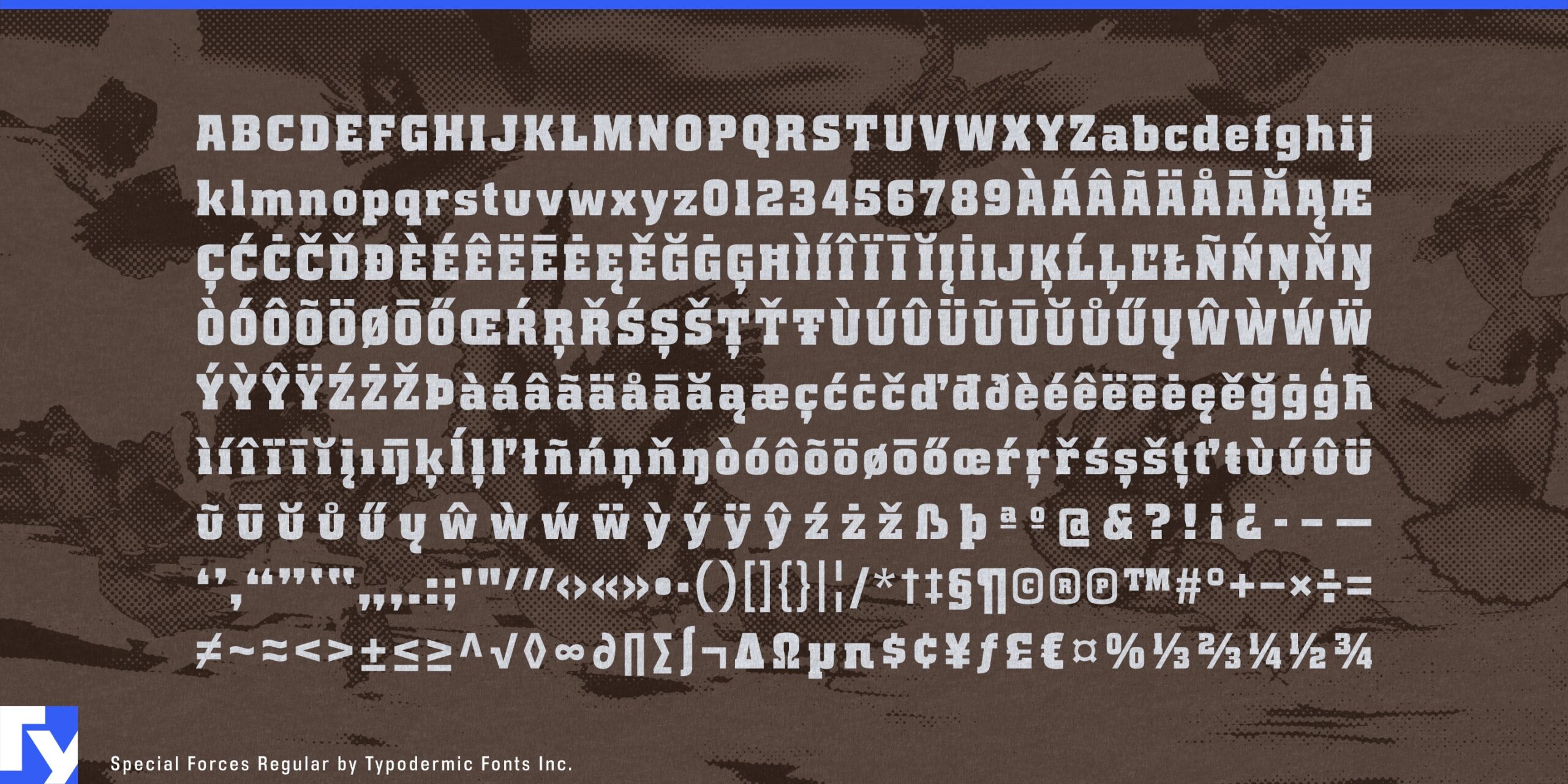
Special Forces Regular Font Free Download . With beautiful script type, professional sans serif font and more. Special forces is a tough, slab serif headline font designed for the screen. This stencil typeface is not your Special forces regular font free download. It is characterized by its tough appearance, making it. A great choice for highlighting your design elements. Special forces font is a robust slab serif typeface designed primarily for headlines and screen use. Download tactical trooper font · free for personal use · introducing “tactical trooper,” a font that brings military precision and modern style together in perfect harmony. You can download the best fonts, free fonts for personal or commercial use. Download special forces regulartruetype font. See how to download special forces. Special forces font | dafont.com english français español deutsch italiano português. Special forces font 2 otf | 9 mb. Download 186,286 free fonts at ufonts.com
Special Forces Regular Font Free Download A great choice for highlighting your design elements. Special forces font is a robust slab serif typeface designed primarily for headlines and screen use. Special forces font 2 otf | 9 mb. Download special forces regulartruetype font. Special forces font | dafont.com english français español deutsch italiano português. Special forces is a tough, slab serif headline font designed for the screen. It is characterized by its tough appearance, making it. You can download the best fonts, free fonts for personal or commercial use. Special forces regular font free download. With beautiful script type, professional sans serif font and more. Download 186,286 free fonts at ufonts.com A great choice for highlighting your design elements. See how to download special forces. This stencil typeface is not your Download tactical trooper font · free for personal use · introducing “tactical trooper,” a font that brings military precision and modern style together in perfect harmony.
Jedi Special Forces 3D Regular Font Special Forces Regular Font Free Download Special forces font | dafont.com english français español deutsch italiano português. Special forces font 2 otf | 9 mb. Special forces regular font free download. This stencil typeface is not your See how to download special forces. Special forces is a tough, slab serif headline font designed for the screen. It is characterized by its tough appearance, making it. Download. Special Forces Regular Font Free Download.
Army Expanded Regular truetype font Special Forces Regular Font Free Download It is characterized by its tough appearance, making it. This stencil typeface is not your See how to download special forces. Download tactical trooper font · free for personal use · introducing “tactical trooper,” a font that brings military precision and modern style together in perfect harmony. Special forces regular font free download. Special forces font is a robust slab. Special Forces Regular Font Free Download.
Army Rangers Gradient Regular Fonts Downloads Special Forces Regular Font Free Download Special forces font is a robust slab serif typeface designed primarily for headlines and screen use. Download special forces regulartruetype font. Special forces font 2 otf | 9 mb. Special forces regular font free download. Download 186,286 free fonts at ufonts.com With beautiful script type, professional sans serif font and more. A great choice for highlighting your design elements. Download. Special Forces Regular Font Free Download.
FORCES Regular Download for free at Free Fonts Special Forces Regular Font Free Download special forces regulartruetype font. Download tactical trooper font · free for personal use · introducing “tactical trooper,” a font that brings military precision and modern style together in perfect harmony. Special forces font | dafont.com english français español deutsch italiano português. You can download the best fonts, free fonts for personal or commercial use. It is characterized by its. Special Forces Regular Font Free Download.
Download free Jedi Special Forces Regular font jedisf.ttf Special Forces Regular Font Free Download You can download the best fonts, free fonts for personal or commercial use. This stencil typeface is not your A great choice for highlighting your design elements. With beautiful script type, professional sans serif font and more. It is characterized by its tough appearance, making it. Download tactical trooper font · free for personal use · introducing “tactical trooper,” a. Special Forces Regular Font Free Download.